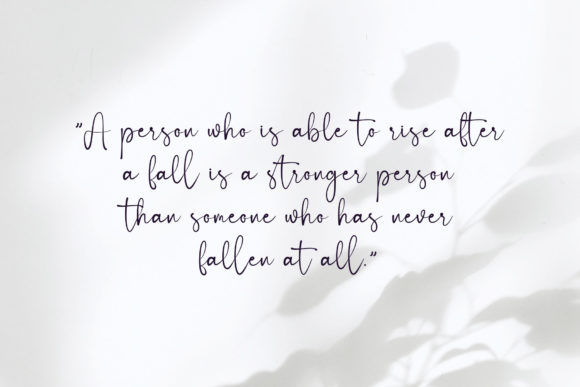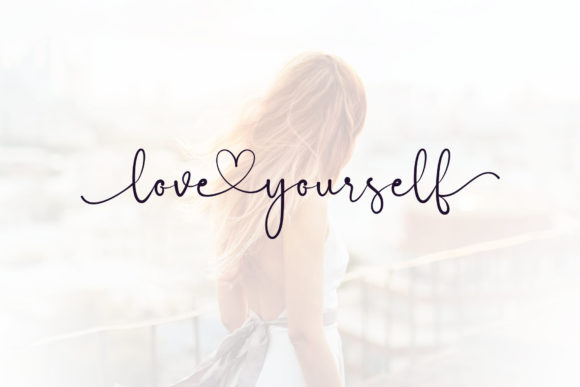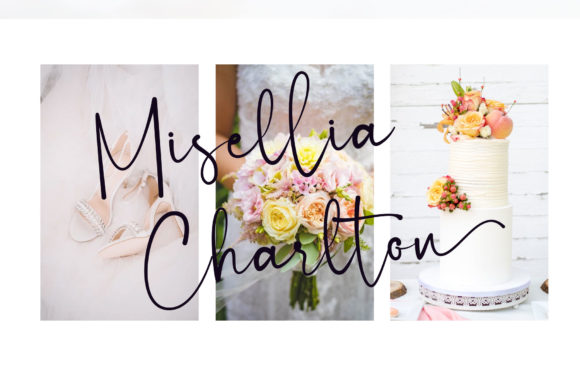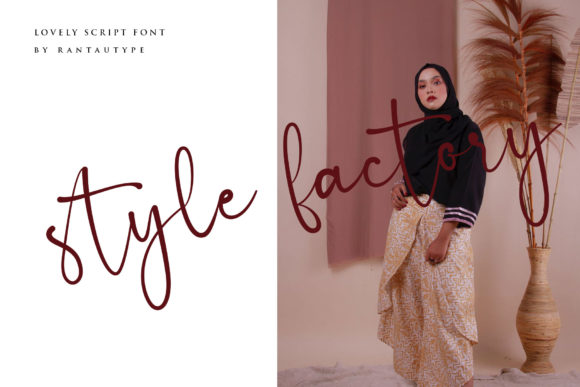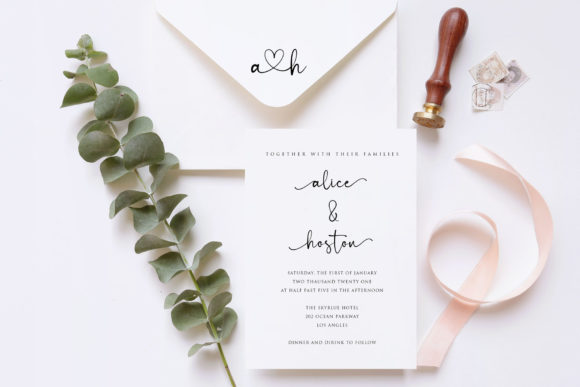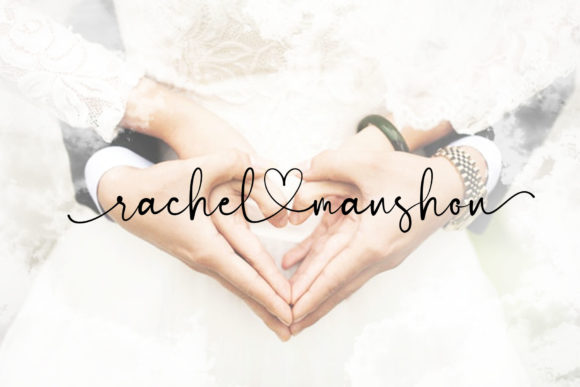
Introduction to Hello Famous Font
Hello Famous is an elegant and sweet script with a romantic spark.
Use it to add that special enchanting touch to any design idea you can think of This font is PUA encoded which means you can access all of the glyphs and swashes with ease.